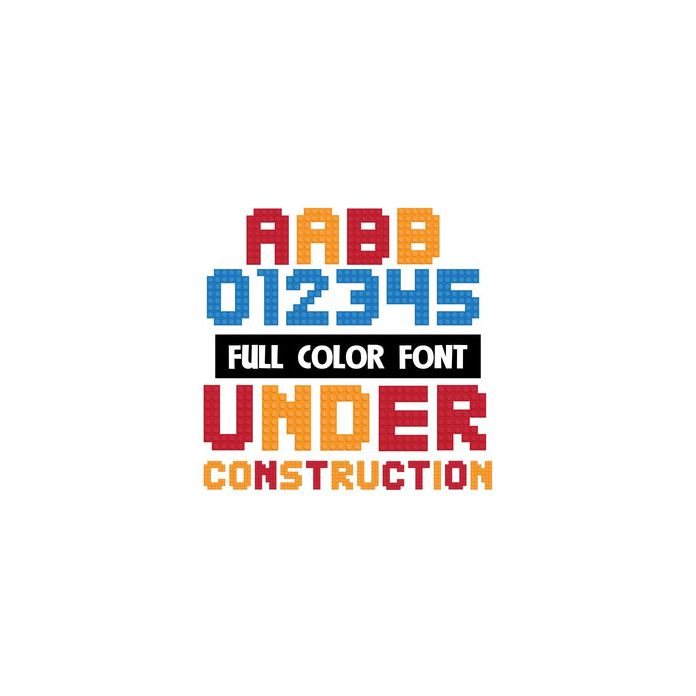
This full-color font looks like it was made out of little building blocks. This font works best for titles, displays, posters and more. Please note color fonts will show as black in non compatible programs. This font type is compatible with Silhouette Studio.